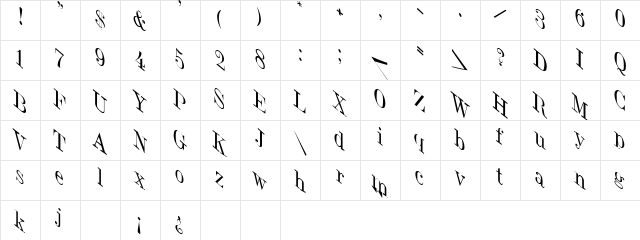
Jumble Italic
Design Context for Jumble Typeface
Jumble is a composed and adaptable typeface that performs quietly and consistently across a wide range of design contexts. The dynamic lean of this cut emphasises speed and emphasis in any layout.